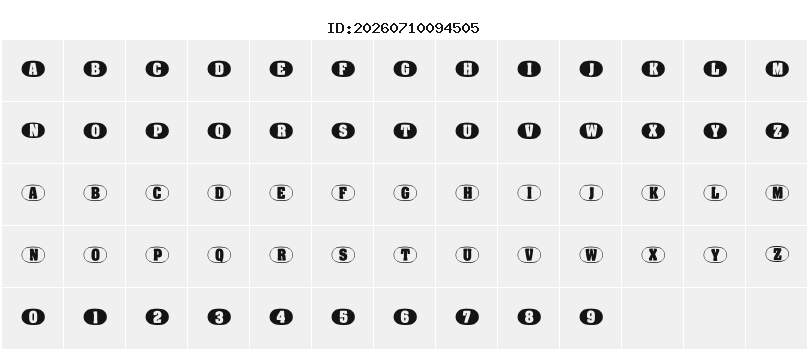
EggsOne Preview
• Font Name: EggsOne
• Full Font Name: EggsOne
• Version: 1.0 2004-04-09
About EggsOne.ttf
EggsOne.ttf is a modern, elegant sans-serif font designed for ultimate readability and visual harmony. Perfect for branding, headlines, web design, and print materials.